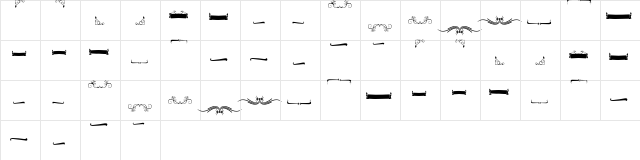
Bunda Swash Regular
| Foundry | Bot Kerling |
| Designer | M Abbas |
Design Context for Bunda Swash Typeface
Bunda Swash brings a calligraphic fluidity to the page — its connecting strokes and expressive curves give it an unmistakably human quality.
Font Pairing: Combine Bunda Swash with a simple geometric sans for maximum contrast — the tension between flowing curves and clean structure is a classic typographic pairing.
Pro Tip: Use Bunda Swash for short runs of text — names, titles, or taglines. Extended body copy in script faces tires the eye quickly.